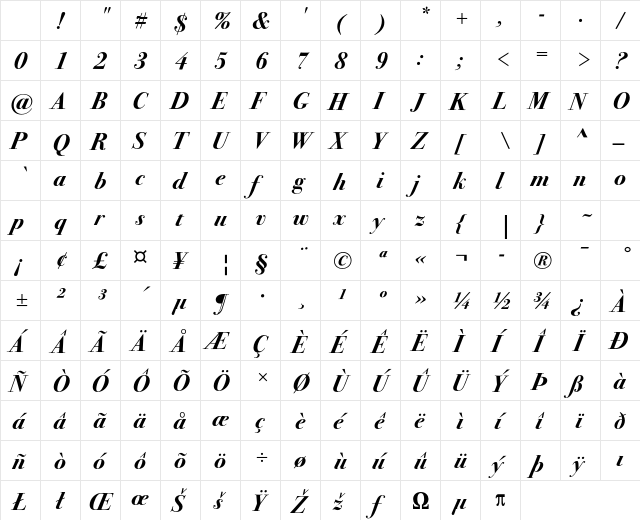
Bodoni Svntytwo ITC Std BoldIt
Style: BoldIt
Designer: Janice Fishman, Holly Goldsmith, Jim Parkinson, Sumner Stone
Design Context for Bodoni Svntytwo ITC Std
Bodoni Svntytwo ITC Std is a composed and adaptable typeface that performs quietly and consistently across a wide range of design contexts. Its bold stroke weight gives it real presence on the page.